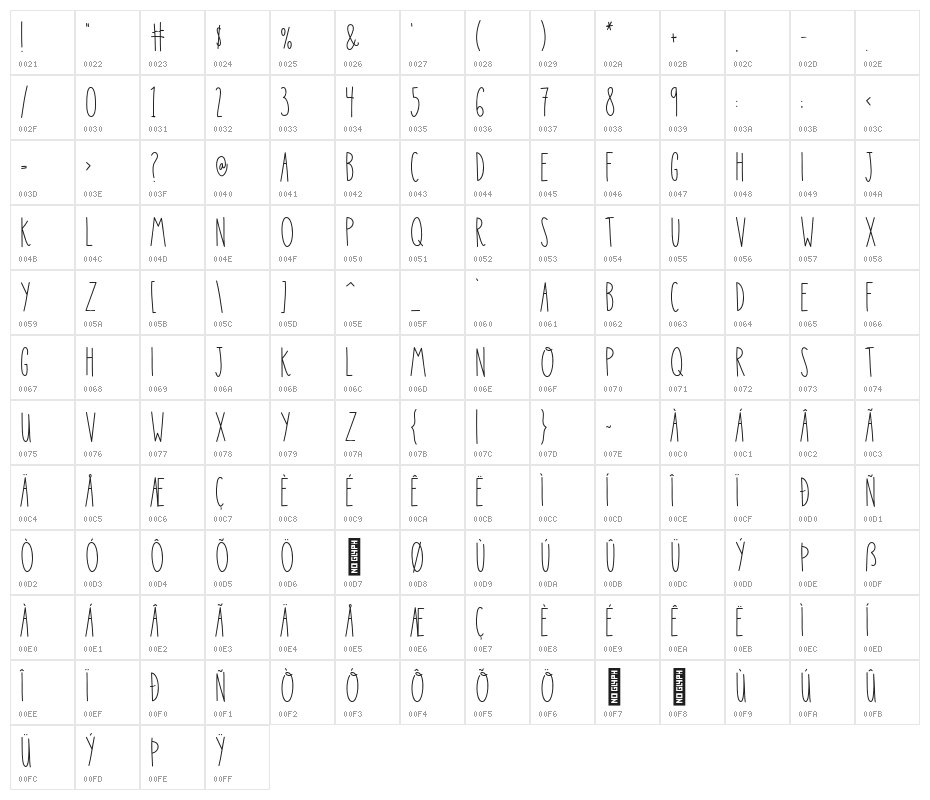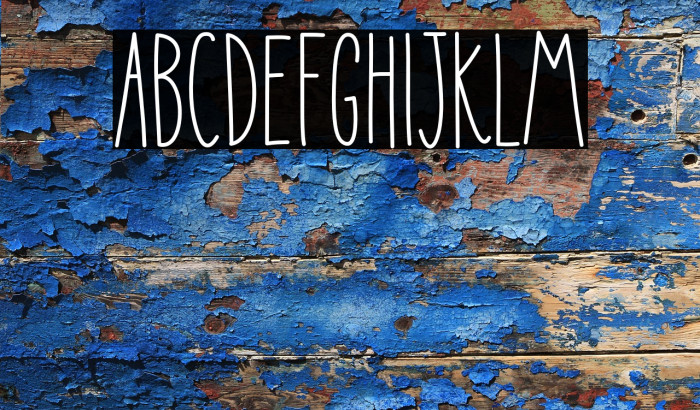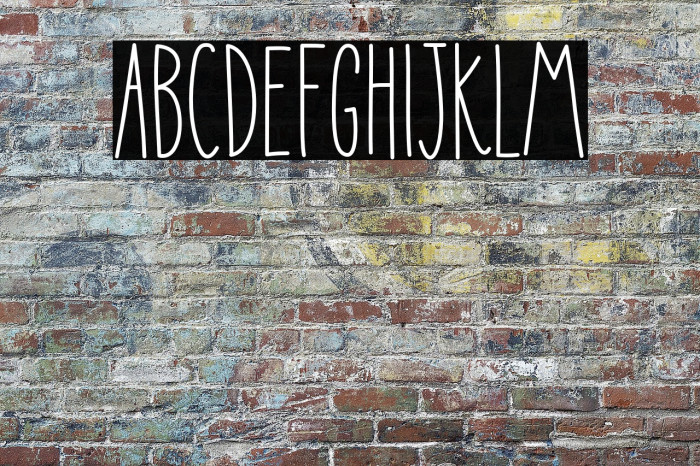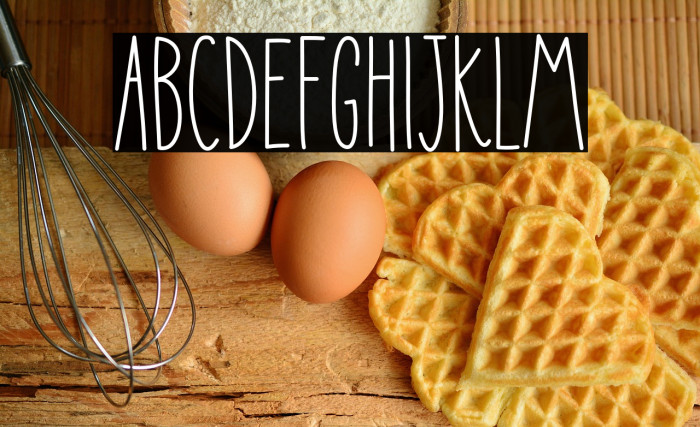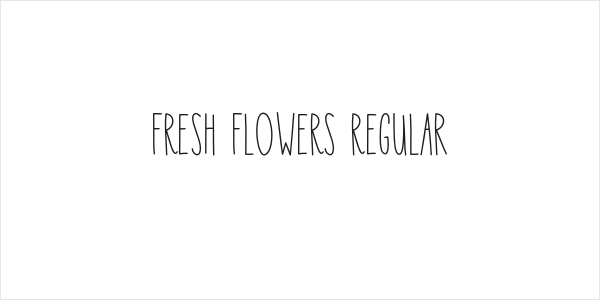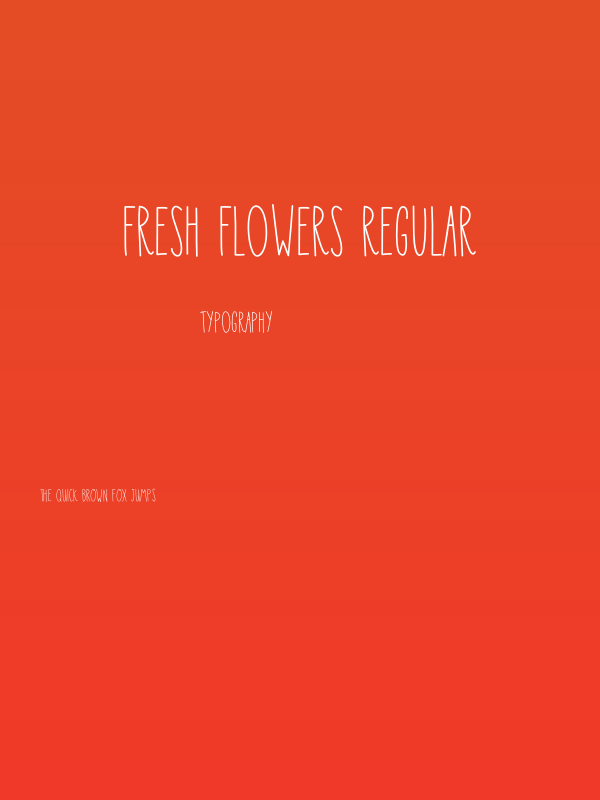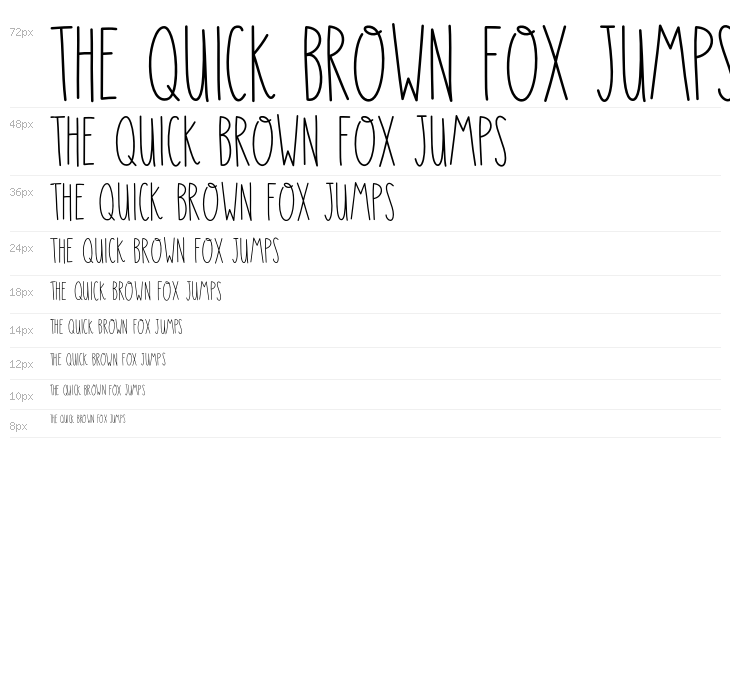
FRESH FLOWERS Regular Font
FRESH FLOWERS Regular Description
This font features a playful, handwritten style with tall, narrow letters. The characters have a whimsical and casual appearance, making them ideal for projects that require a friendly and approachable feel. The strokes are consistent in width, providing a clean and modern look. The font includes both uppercase and lowercase letters, numbers, and a variety of special characters, ensuring versatility in design applications. Its unique charm is perfect for creative projects that aim to capture attention with a personal touch.